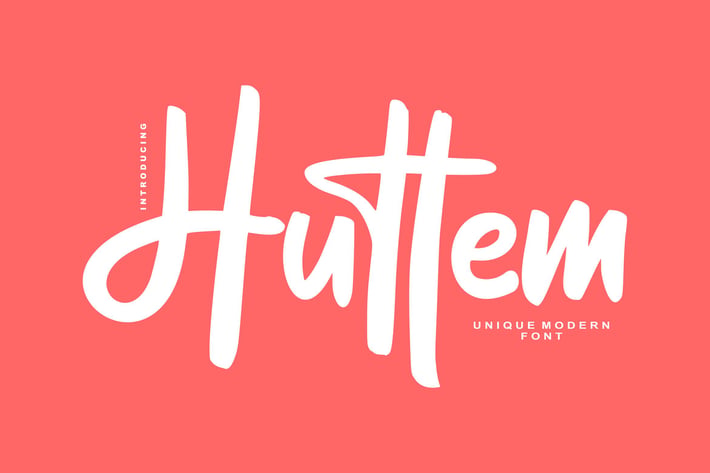
Huttem | Unique Modern Script Font
Huttem | Unique Modern Script Font with a calligraphy style, So beautiful on invitation like greeting cards, branding materials, business cards, quotes, posters, and more!